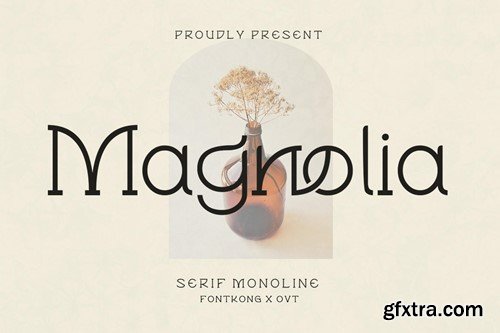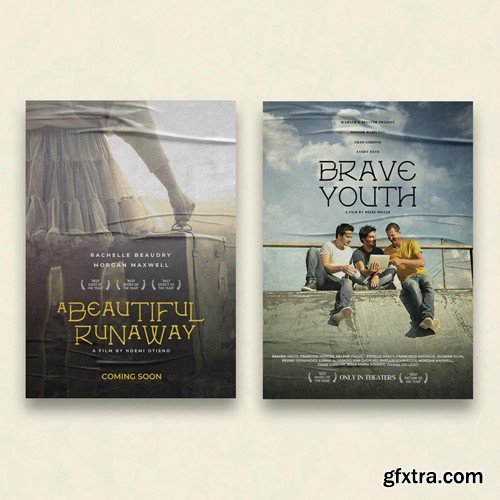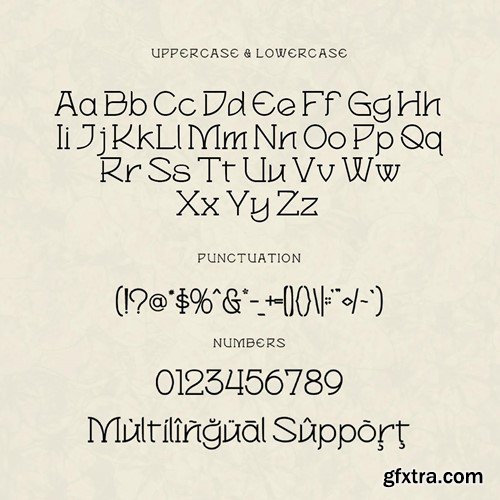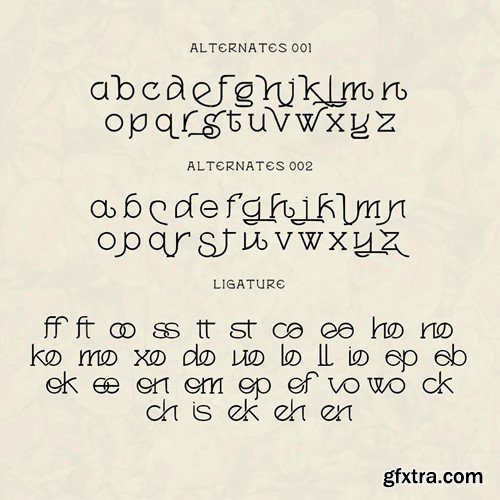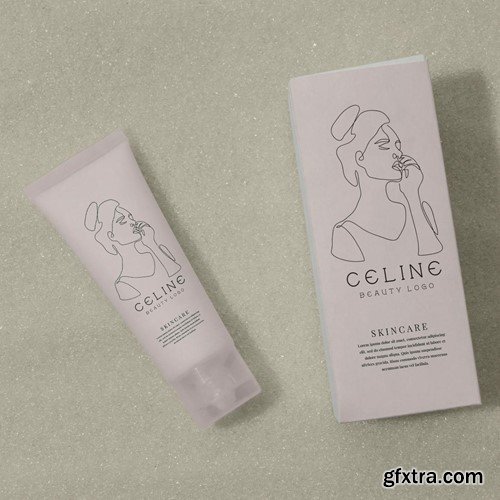
Magnolia - Serif Font Monoline Introducing "Magnolia," a serene and subtle monoline serif font that brings a touch of elegance to any design. Perfect for those who desire a sleek, streamlined typeface with a uniform stroke, Magnolia is especially suited for minimalist branding, clean web design, and sophisticated print materials. You will receive the font files in TTF, OTF, and WOFF formats Magnolia's refined appearance is characterized by its consistent line weight and gentle serifs, offering a modern twist on traditional serif fonts. This typeface provides excellent readability and a classy aesthetic that enhances logos, headings, and text bodies alike. It's a versatile choice for everything from boutique branding to personal blog designs, providing a professional yet approachable look. The font package includes a comprehensive set of characters, including uppercase and lowercase letters, numerals, punctuation, and support for multiple languages, making it a practical option for a wide range of creative projects. Whether you're crafting elegant invitations, developing stylish packaging, or updating your business's visual identity, Magnolia ensures your designs resonate with simplicity and style. Magnolia is the ideal serif monoline font for designers who value clarity and refined aesthetics in their typography.